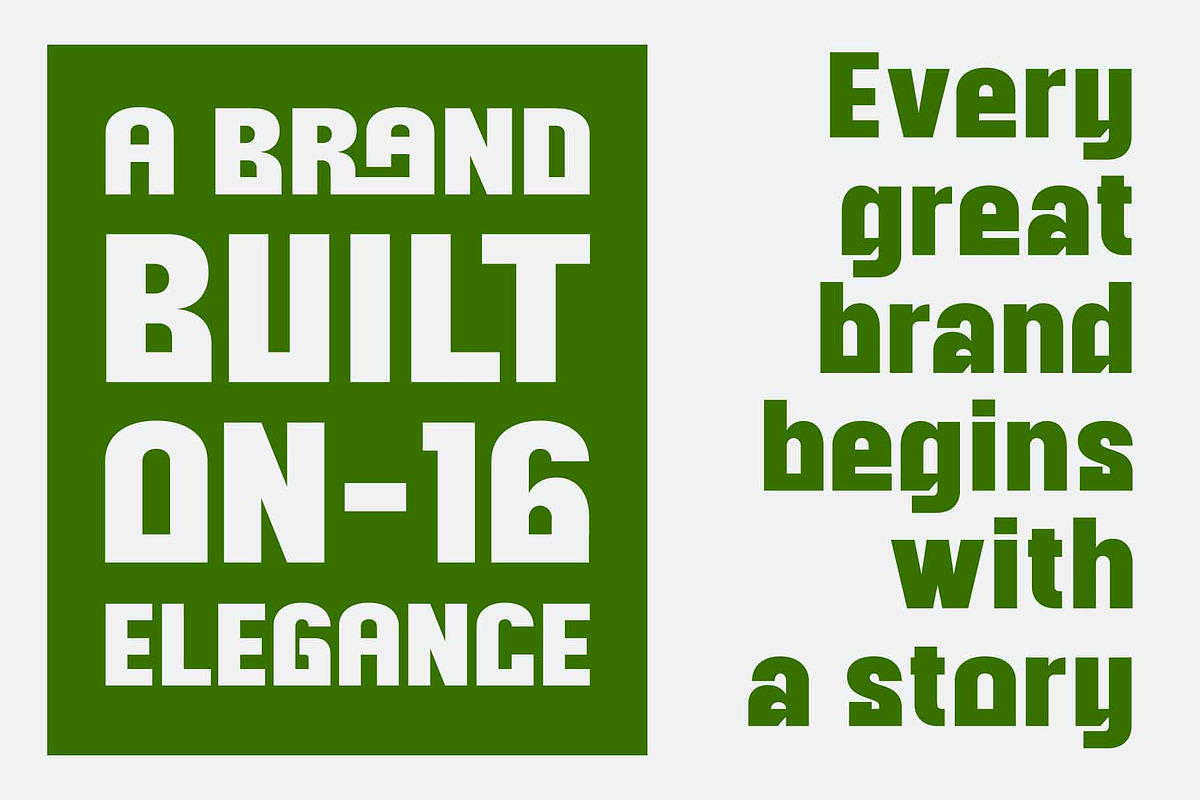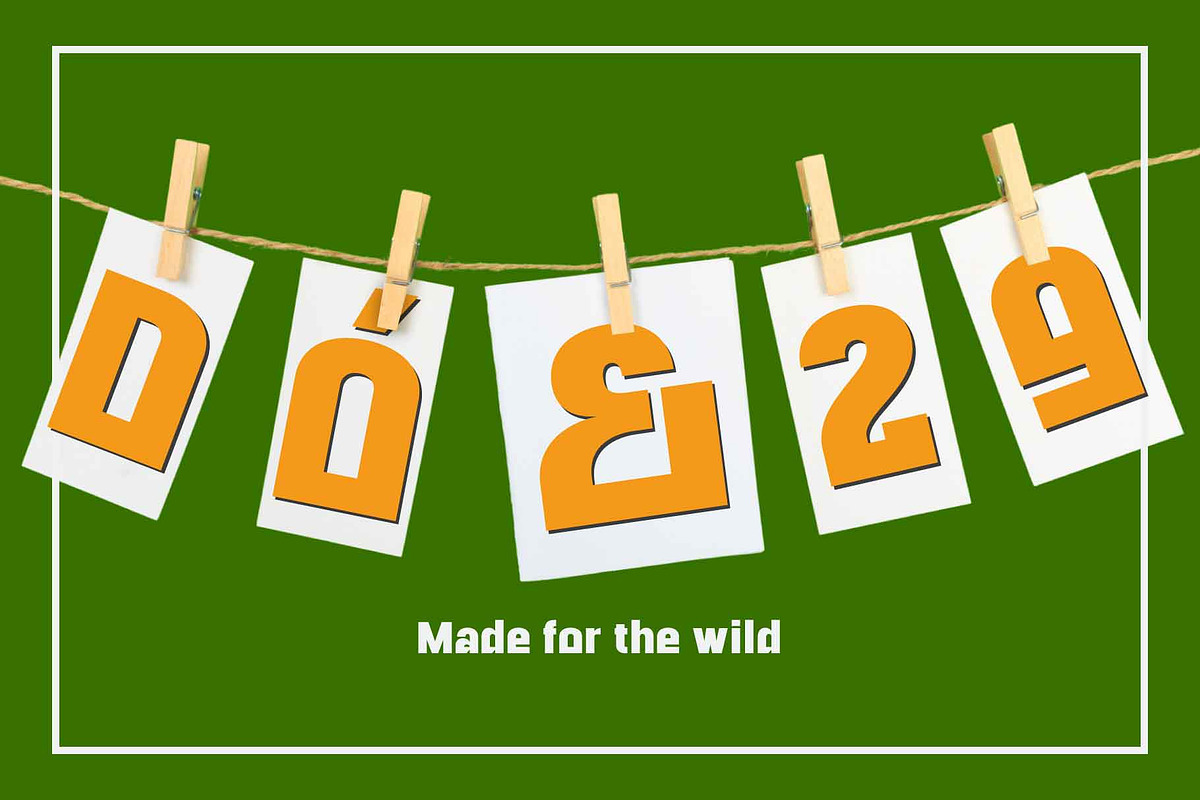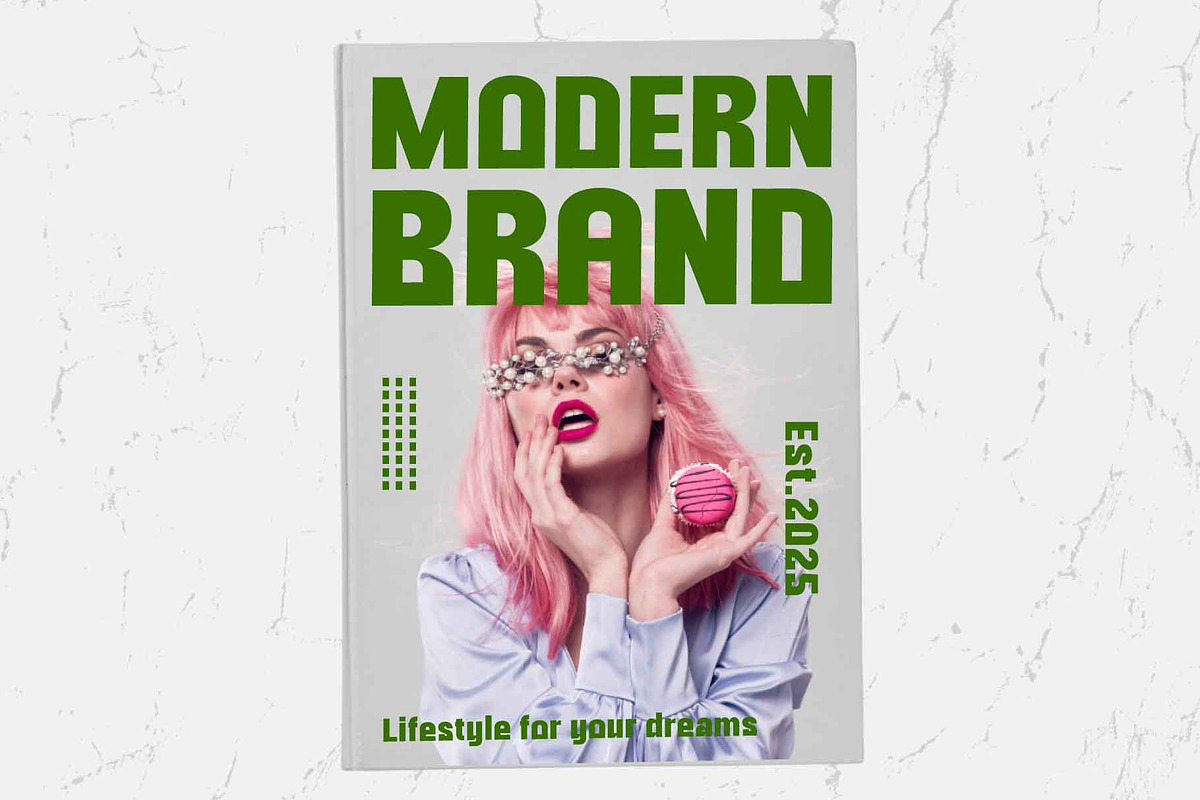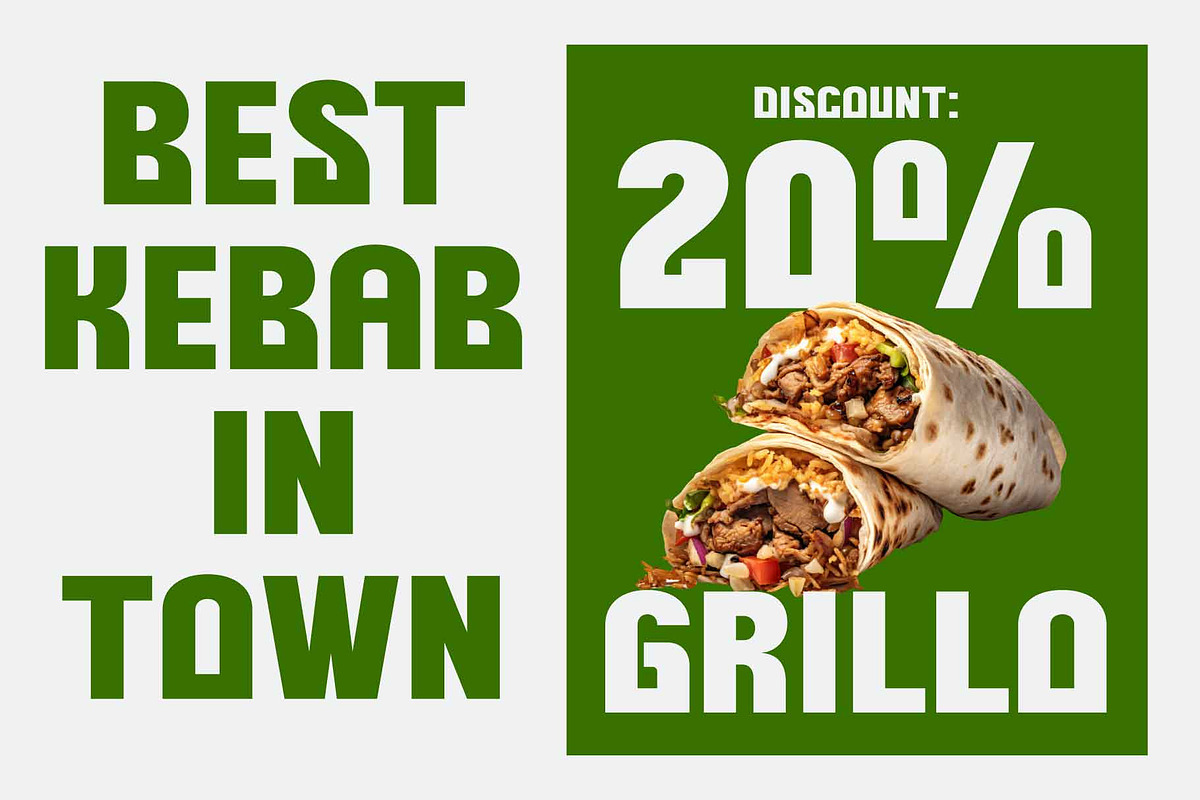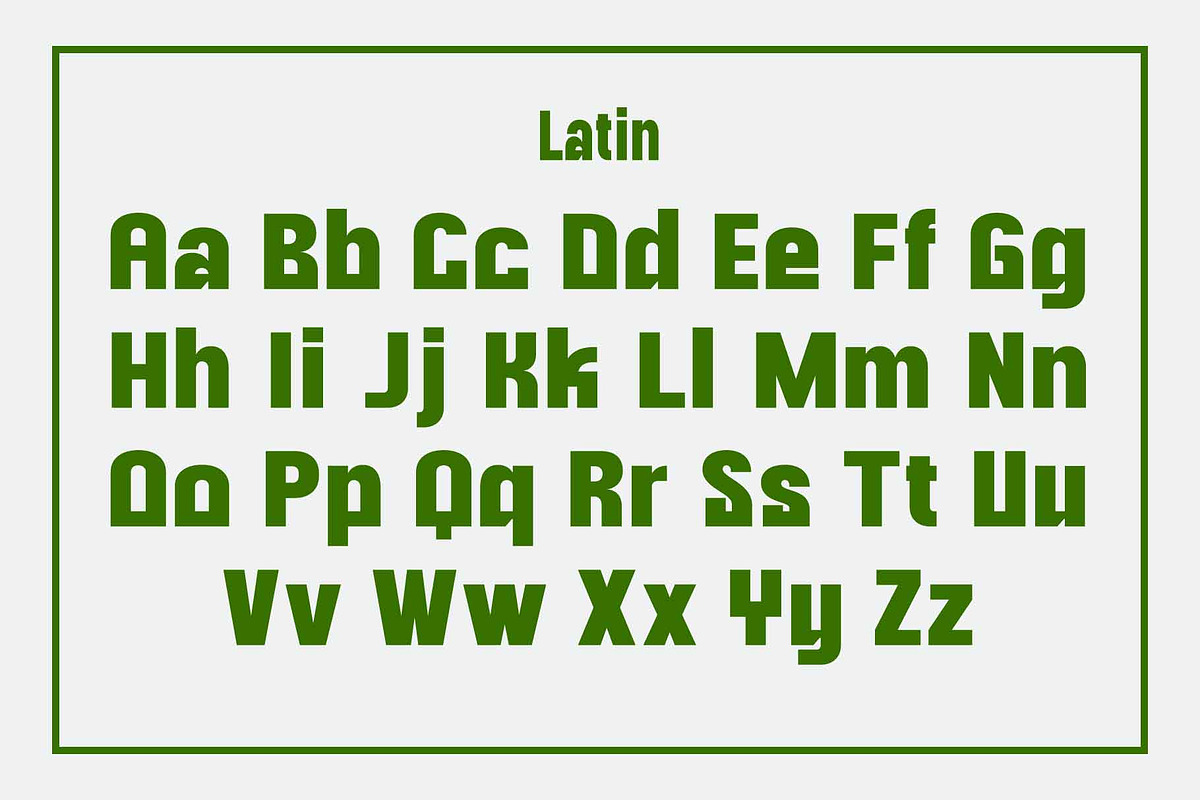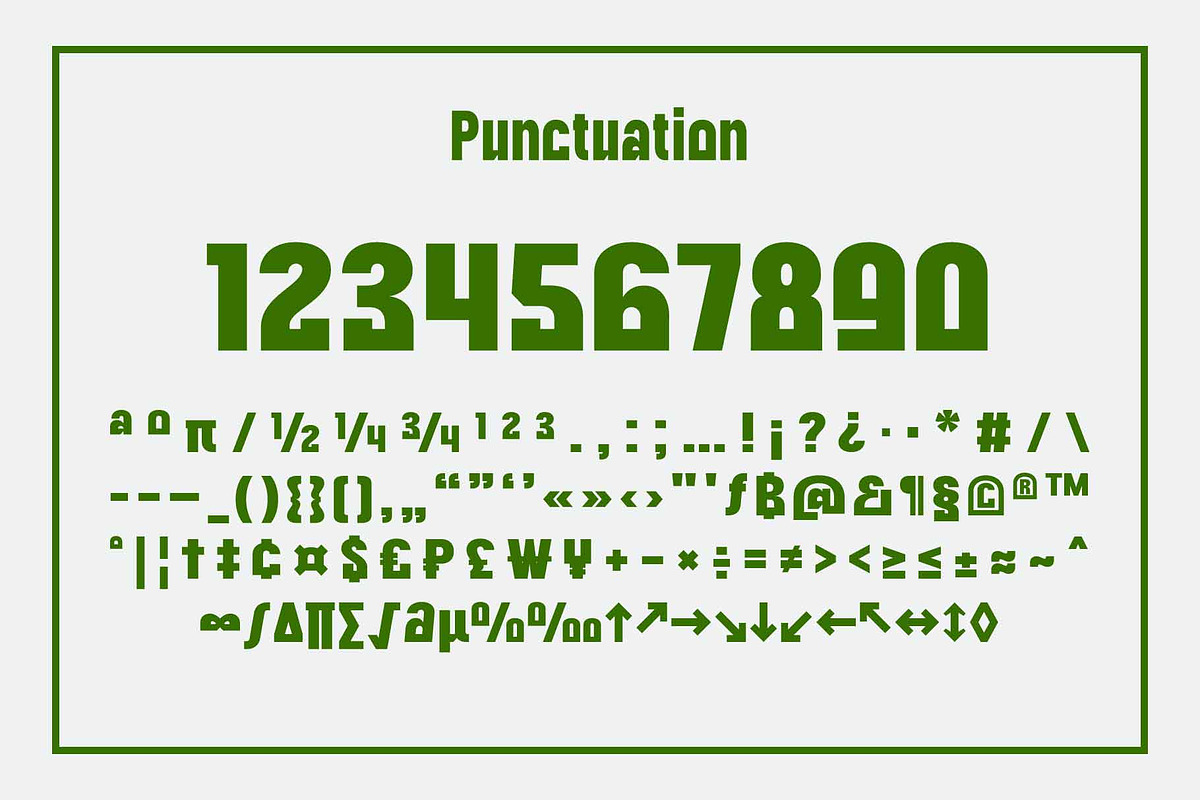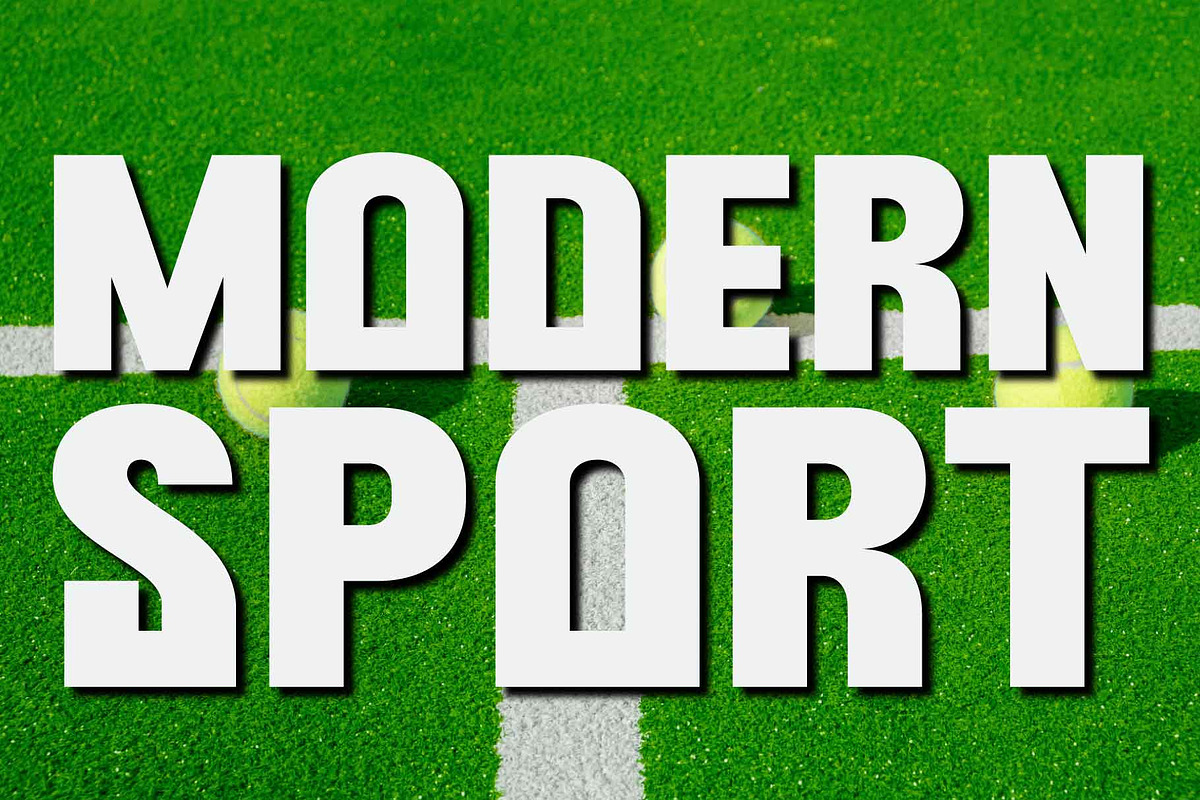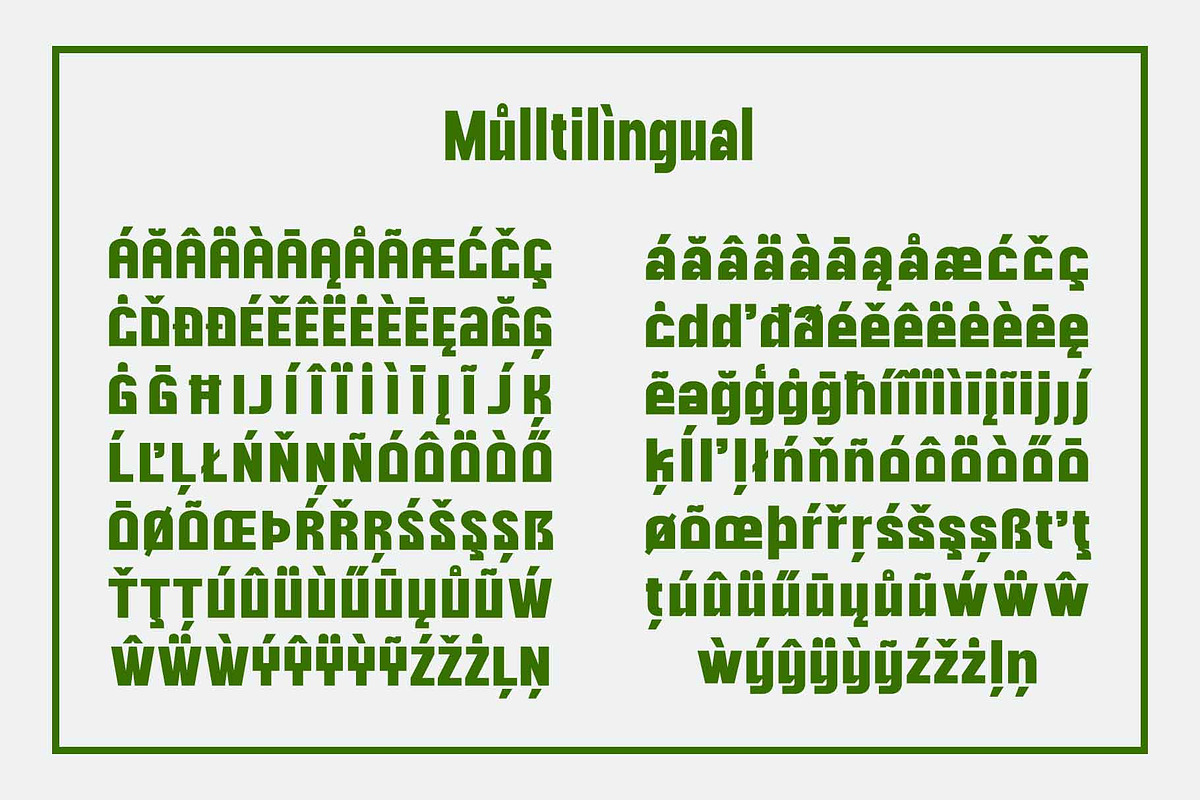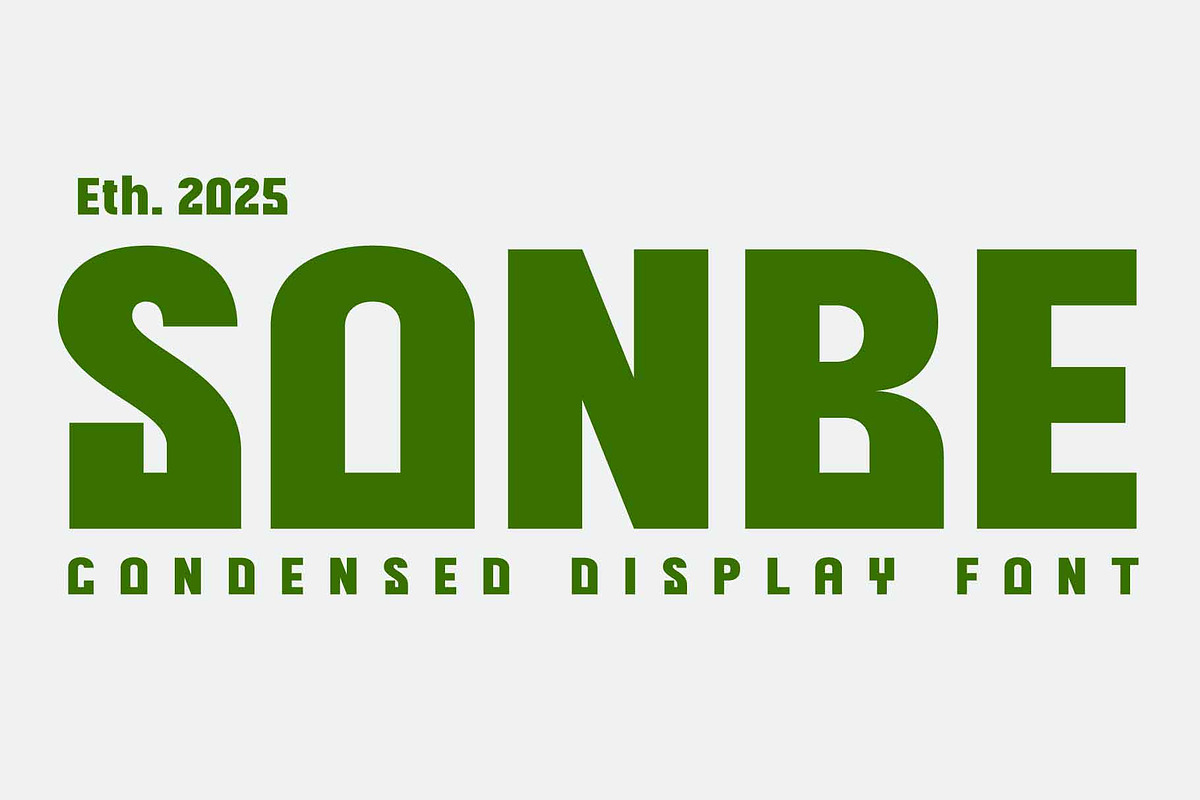
Sonbe Heavy Display
Built for the front row of high-stakes design. I spent weeks obsessing over those square bowls. Most heavy fonts feel sluggish, but Sonbe moves. The terminals are cut with surgical precision to keep the white space active. It is thick. It is loud. The ampersand isn't just a symbol; it's a structural statement. I hand-pulled every curve to ensure the optical weight never feels bloated, even when you crank the size up for a stadium billboard. It’s pure grit.
LIGATURE COUNT 15+ custom pairs including 'Th', 'Wh', and 'Qu' for tighter headlines.
STYLISTIC SETS Contextual alternates for descending characters 'g', 'y', and 'j'.
ANATOMY SCAN Vertical terminals with strictly rectangular counter-forms and zero-taper strokes.